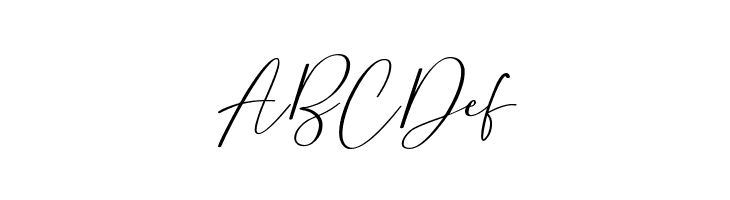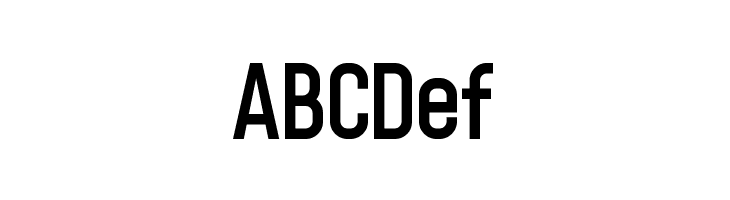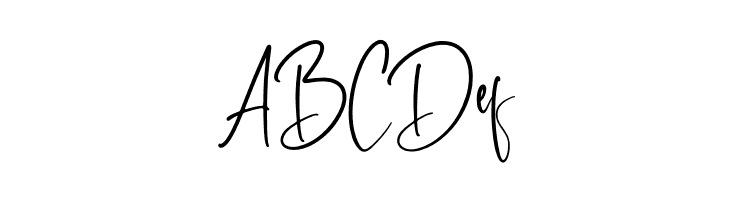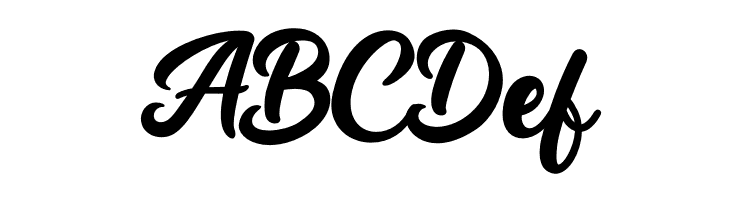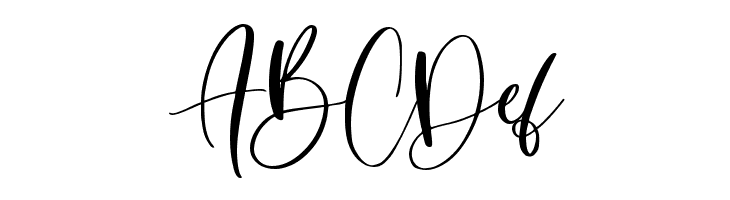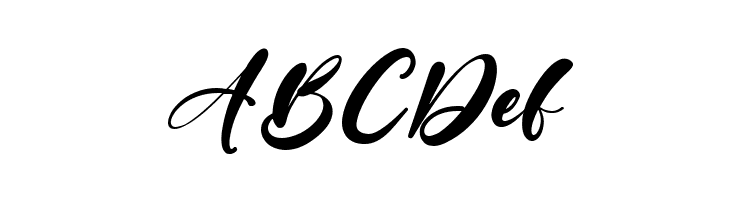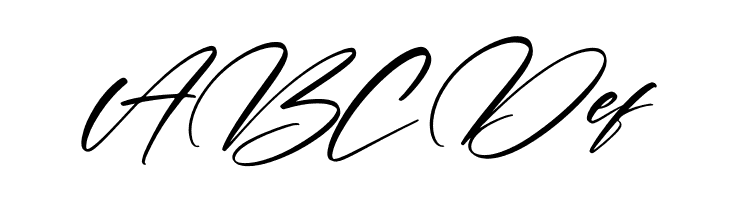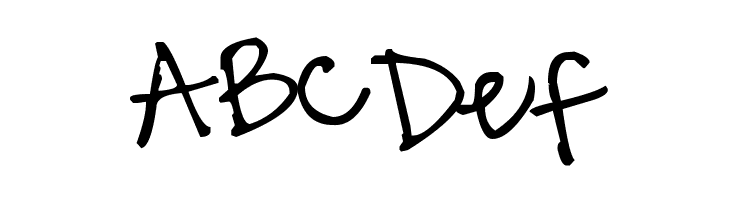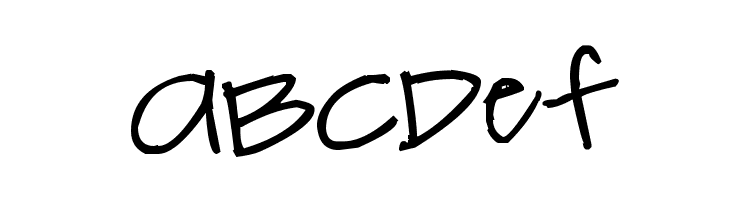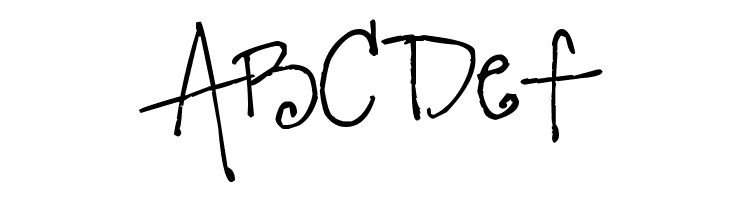
A bold, decorative font with unique curves and artistic flair.
A clear and balanced Gurmukhi script font with consistent stroke width.
A graceful and fluid script font with elegant, interconnected strokes.
A modern, elegant font with flowing uppercase and structured lowercase letters.
A bold, cursive font with elegant, flowing lines and a handwritten style.
A lively handwritten font with expressive, flowing strokes.
A bold, gothic-style font with intricate, angular detailing.
A bold, modern font with a geometric and slightly condensed style.
A lively, expressive handwritten font with dynamic strokes.
A decorative font with stylized animal patterns and geometric designs.
A flowing, cursive script font with elegant, connected strokes.
A dynamic, cursive script font with elegant, sweeping strokes.
A bold, distressed font with a vintage, textured appearance.
A playful, casual handwritten font with a dynamic and lively appearance.
A playful, casual handwritten font with smooth, connected strokes.
A playful, casual handwritten font with dynamic, irregular strokes.
A playful, handwritten script font with smooth, flowing curves.
A playful doodle-style design with stick figures and whimsical elements.
A playful, handwritten font with a casual and energetic style.
A playful, handwritten font with doodle-like symbols and a casual, friendly style.
A casual, handwritten font with a playful and informal style.
A playful, handwritten font with a whimsical and informal style.
A playful, casual handwritten font with irregular strokes and a lively feel.
Hand-drawn doodle icon set with a whimsical, playful feel.
A playful set of hand-drawn doodles with a whimsical and casual style.
A playful, casual handwritten font with uneven strokes.
A playful, hand-drawn font with tall, narrow characters and a whimsical style.
A playful, handwritten font with a casual and friendly vibe.
A playful, hand-drawn font with a whimsical and informal style.
A playful, casual handwritten font with a lively and informal style.
A playful, handwritten font with a casual and lively style.
A rough, textured font with a hand-drawn, grunge aesthetic.
A playful, handwritten font with a casual and personal touch.